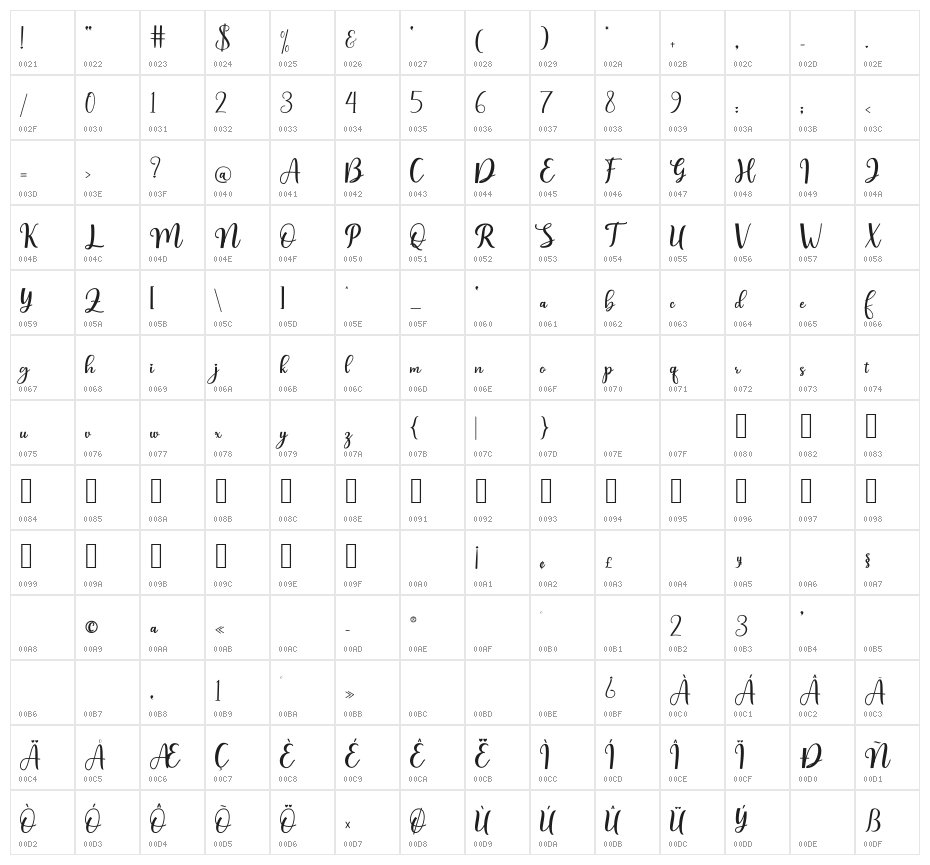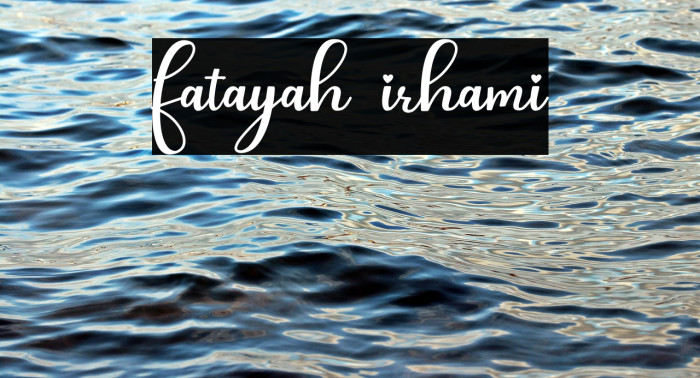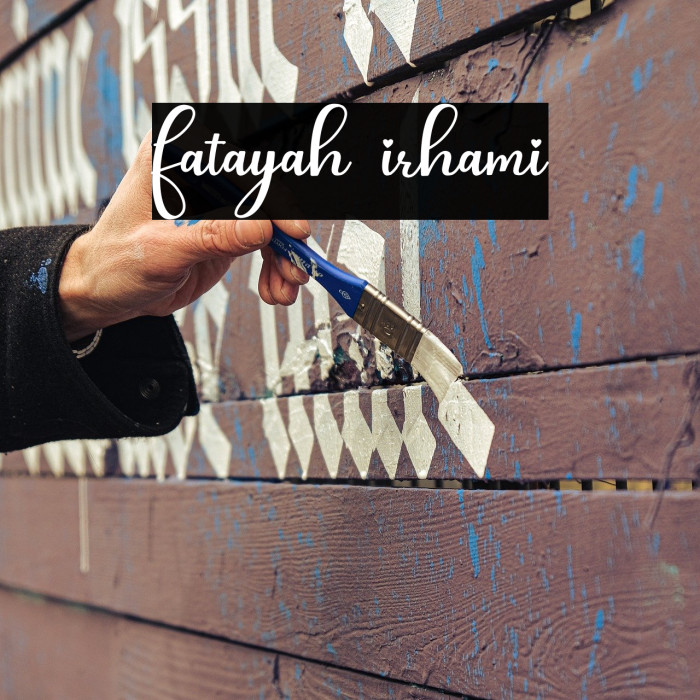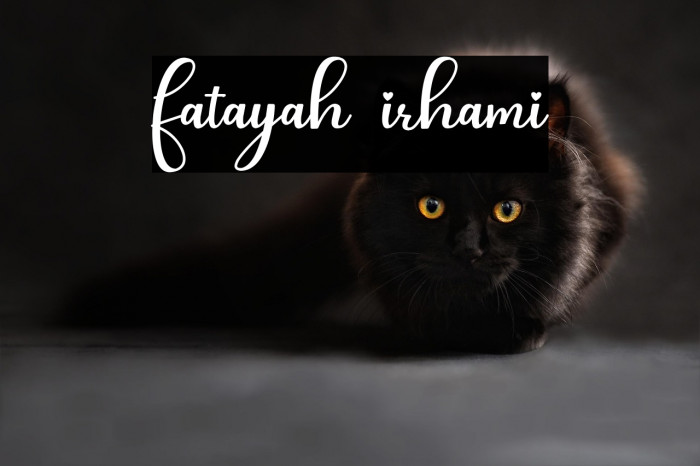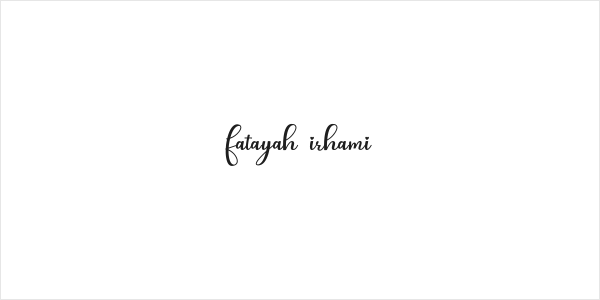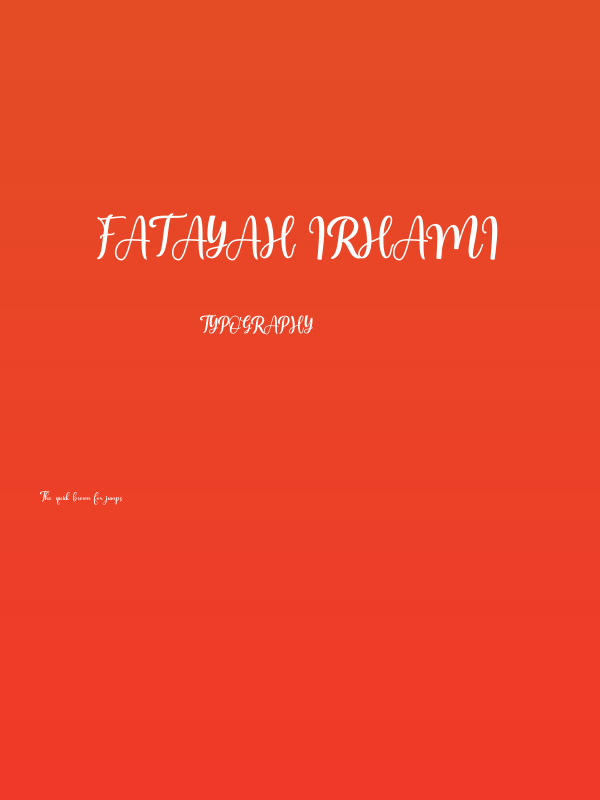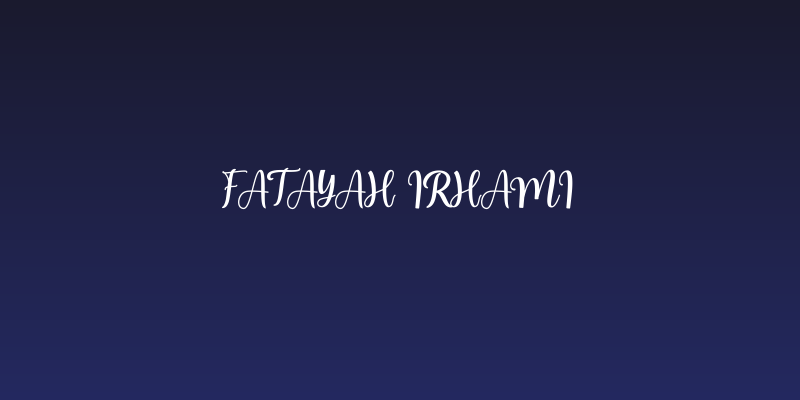
fatayah irhami Font
fatayah irhami Description
This font features an elegant and flowing script style, characterized by its smooth, cursive strokes and graceful curves. The uppercase letters are bold and prominent, with a slight slant that adds a dynamic feel. The lowercase letters maintain a consistent flow, enhancing readability while retaining a stylish appearance. Numbers and special characters are crafted with the same attention to detail, ensuring a cohesive look across all elements. The overall design exudes a sense of sophistication and charm, making it suitable for a variety of creative applications.
| Overall Style | Elegant, Decorative |
| Proposed Projects | Ideal for wedding invitations, branding, greeting cards, and elegant packaging designs. |